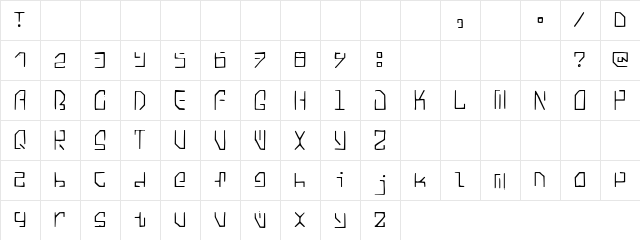
Supandi Regular
Design Context for Supandi Typeface
Supandi is a composed and adaptable typeface that performs quietly and consistently across a wide range of design contexts.